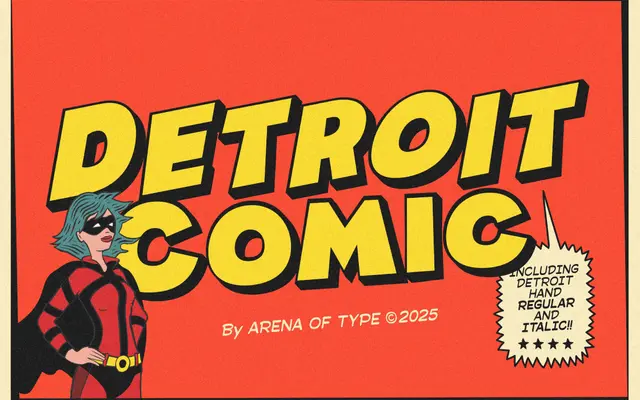
Detroit Comic
Prioritype · 2025
A ten-style comic lettering family from Prioritype, pairing bold headline cuts with handwritten speech-bubble variants for illustrated and children's work.
The family splits into three distinct branches: Detroit Comic for high-impact titles, Detroit Hop for a looser, more energetic alternative, and Detroit Hand for speech bubbles and captions with italic and bold cuts. Each headline branch ships with shadow and outline layering variants, giving designers pre-built depth effects without manual stacking. The pairing between the headline and hand styles is designed to hold together across posters, social media, comics and children's publishing.
A comic-book lettering family drawing on classic American comic strip typography, combining bold headline styles with handwritten speech-bubble variants across ten decorative styles.